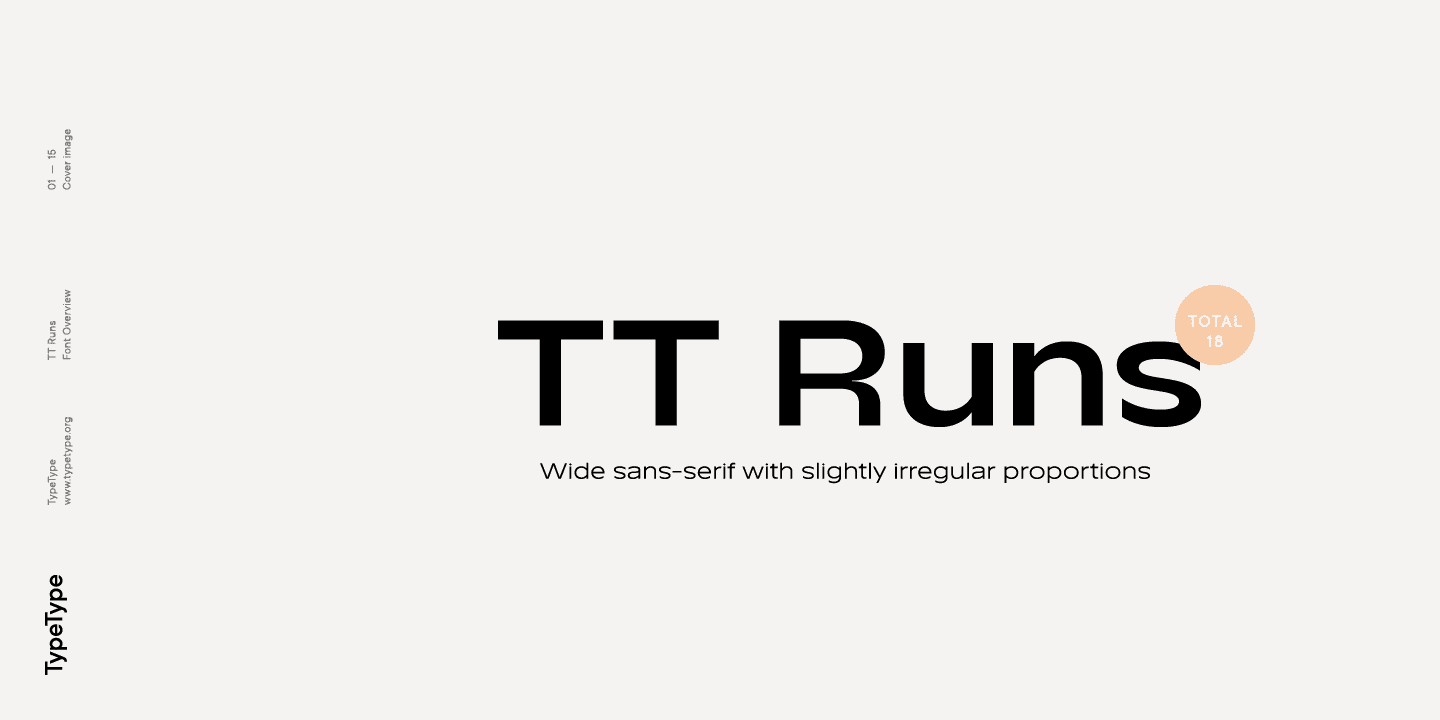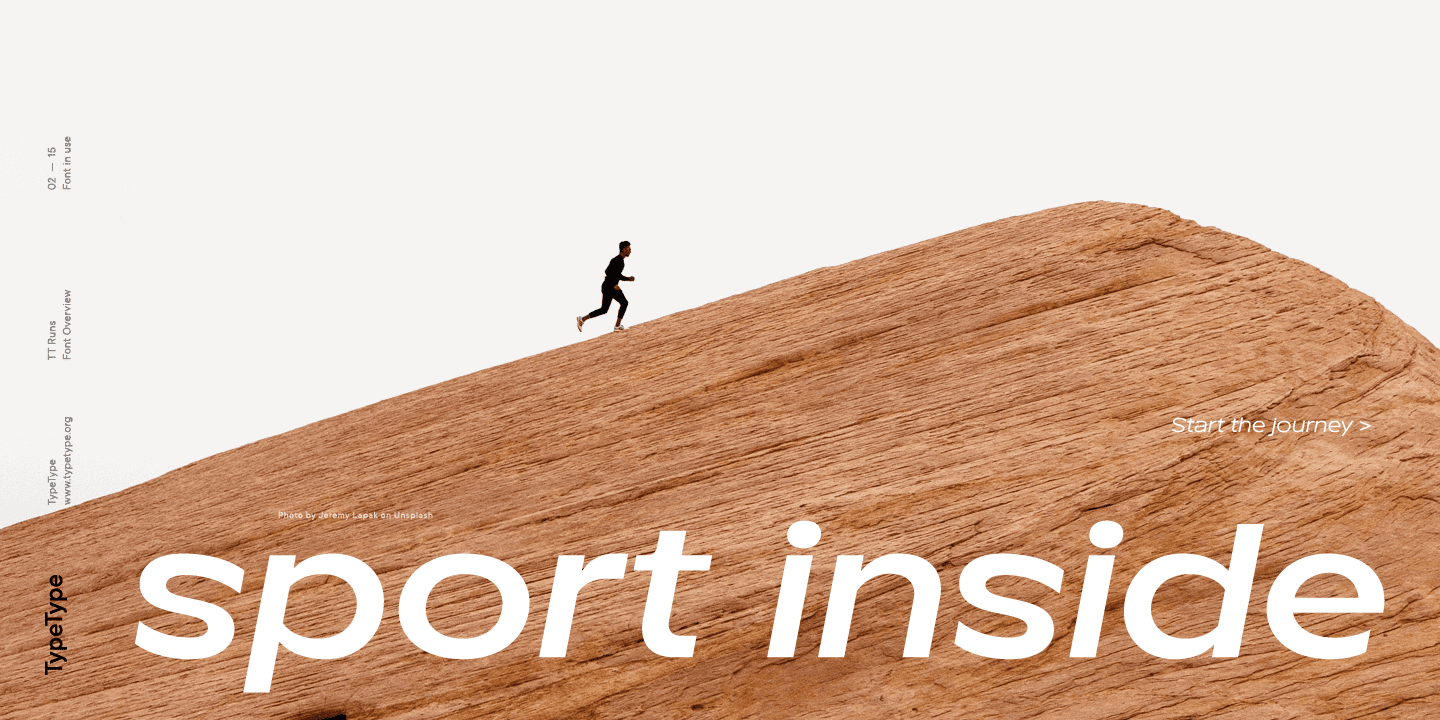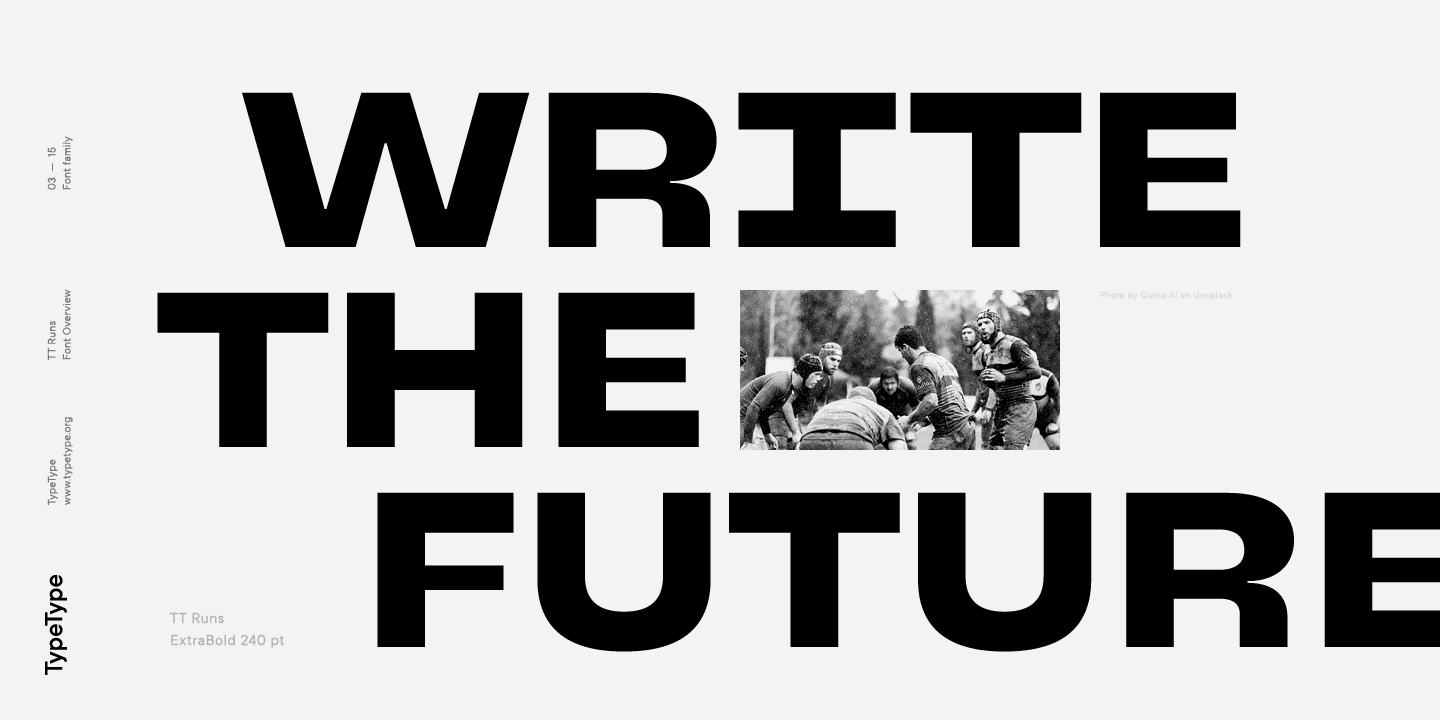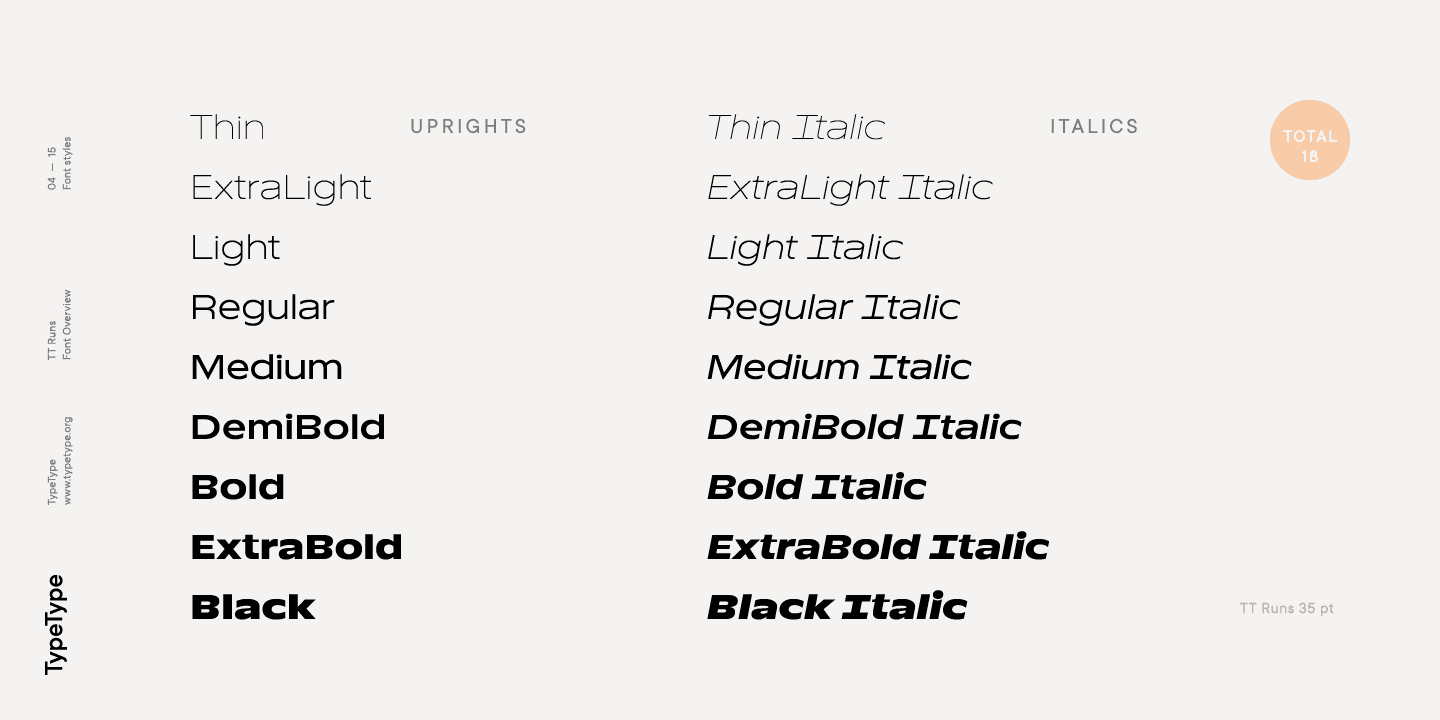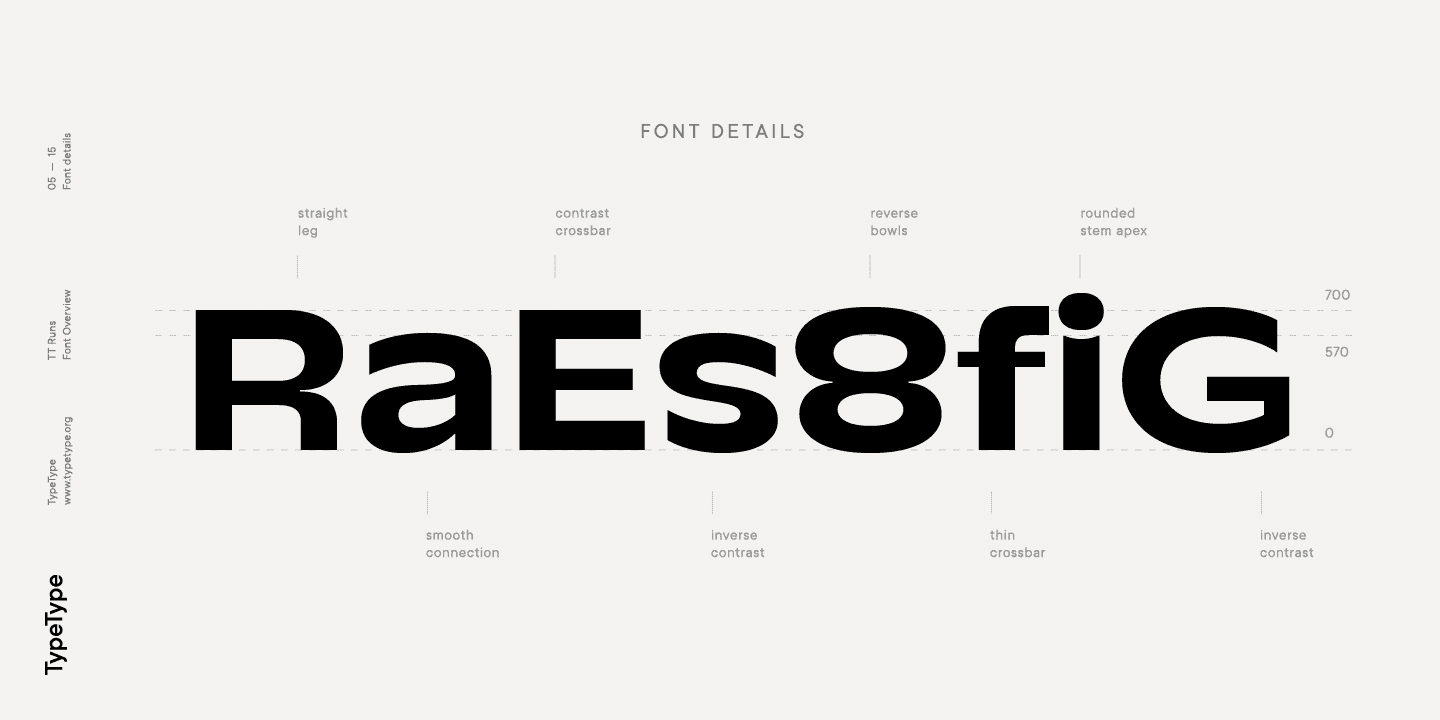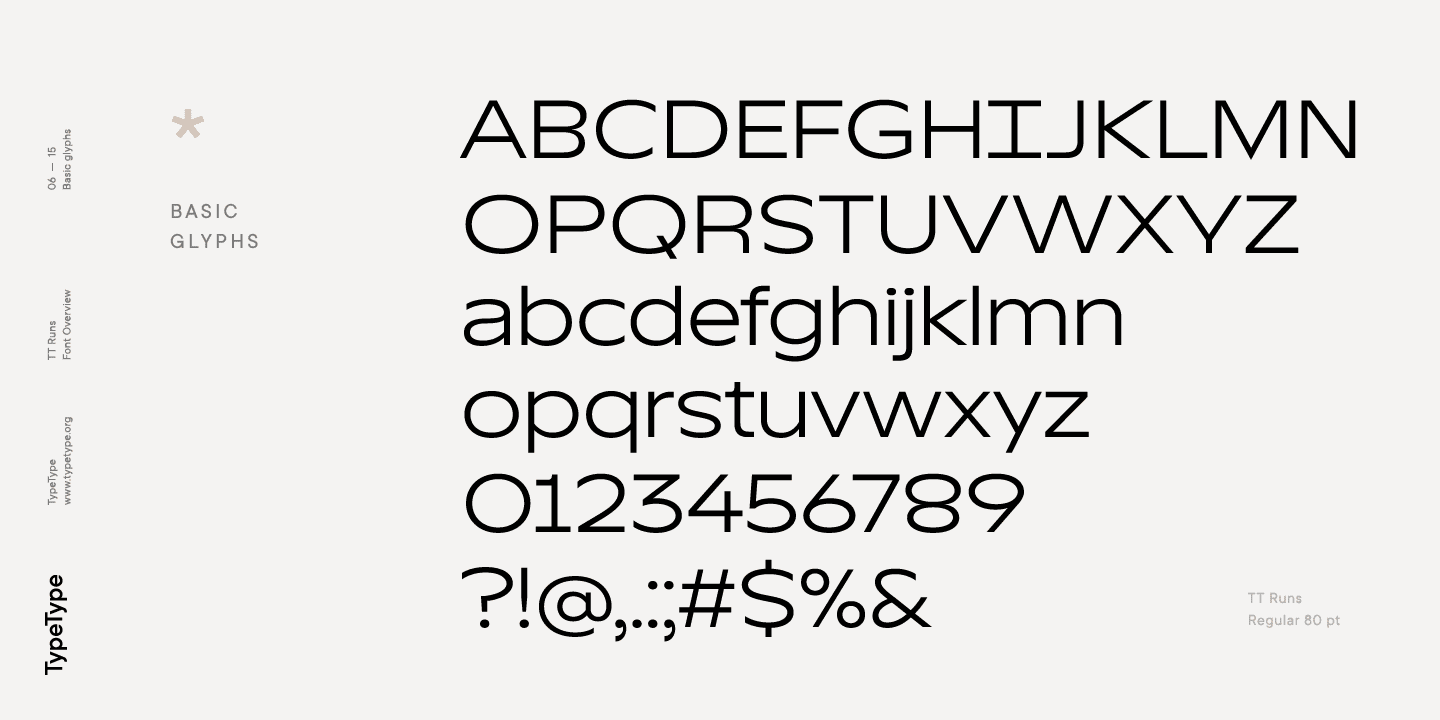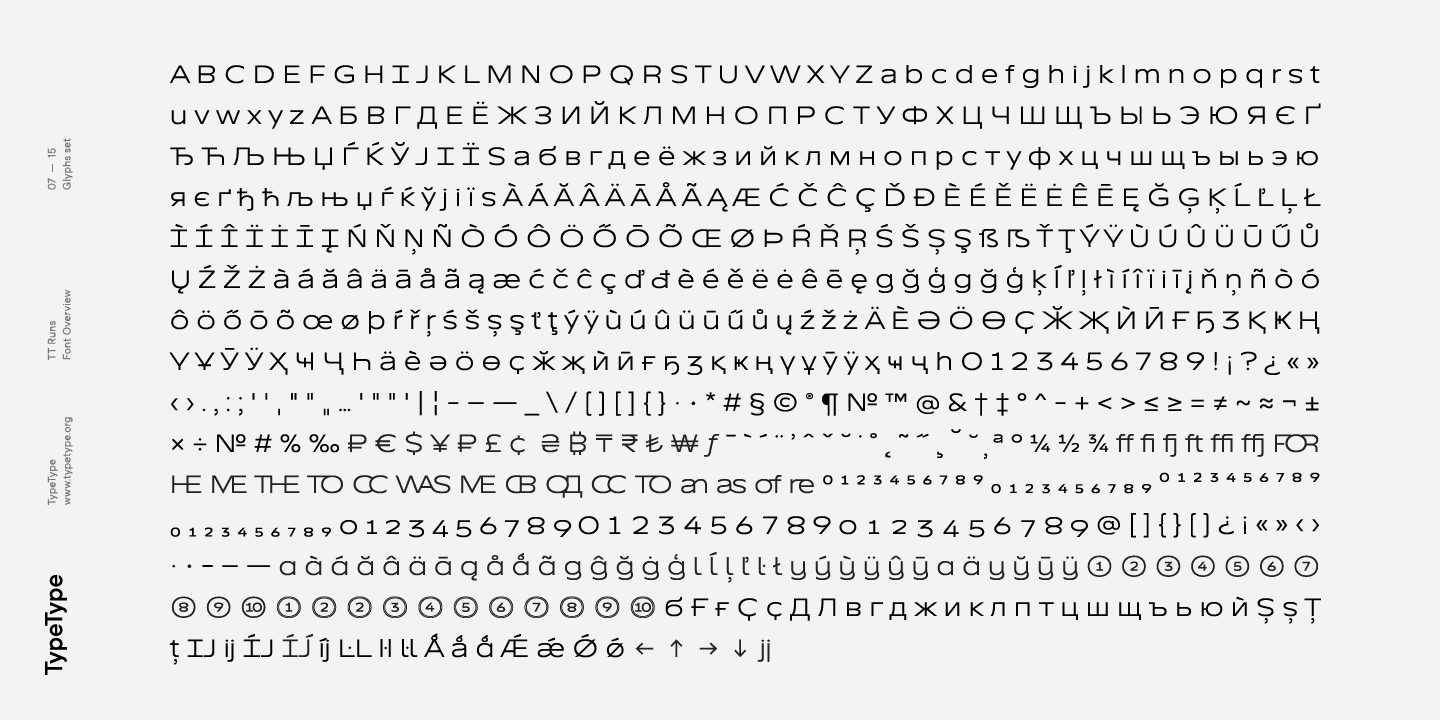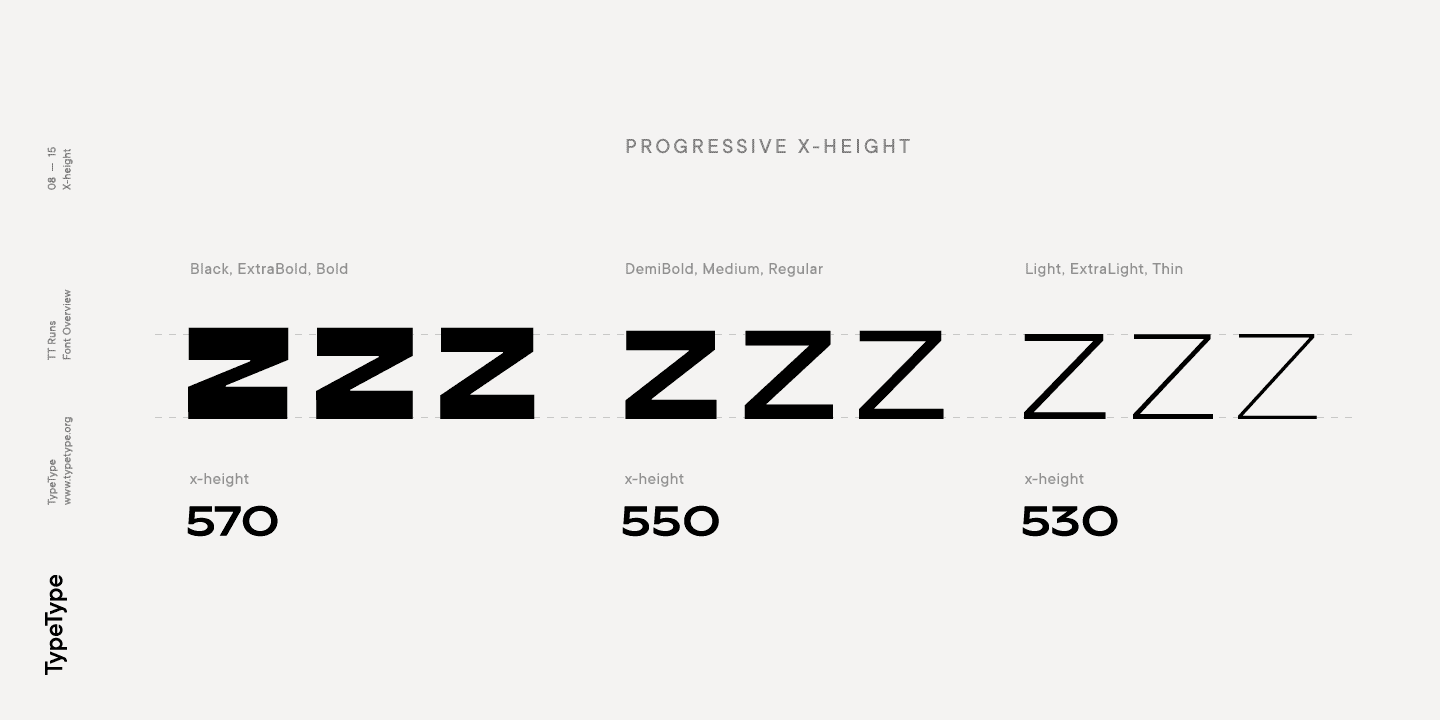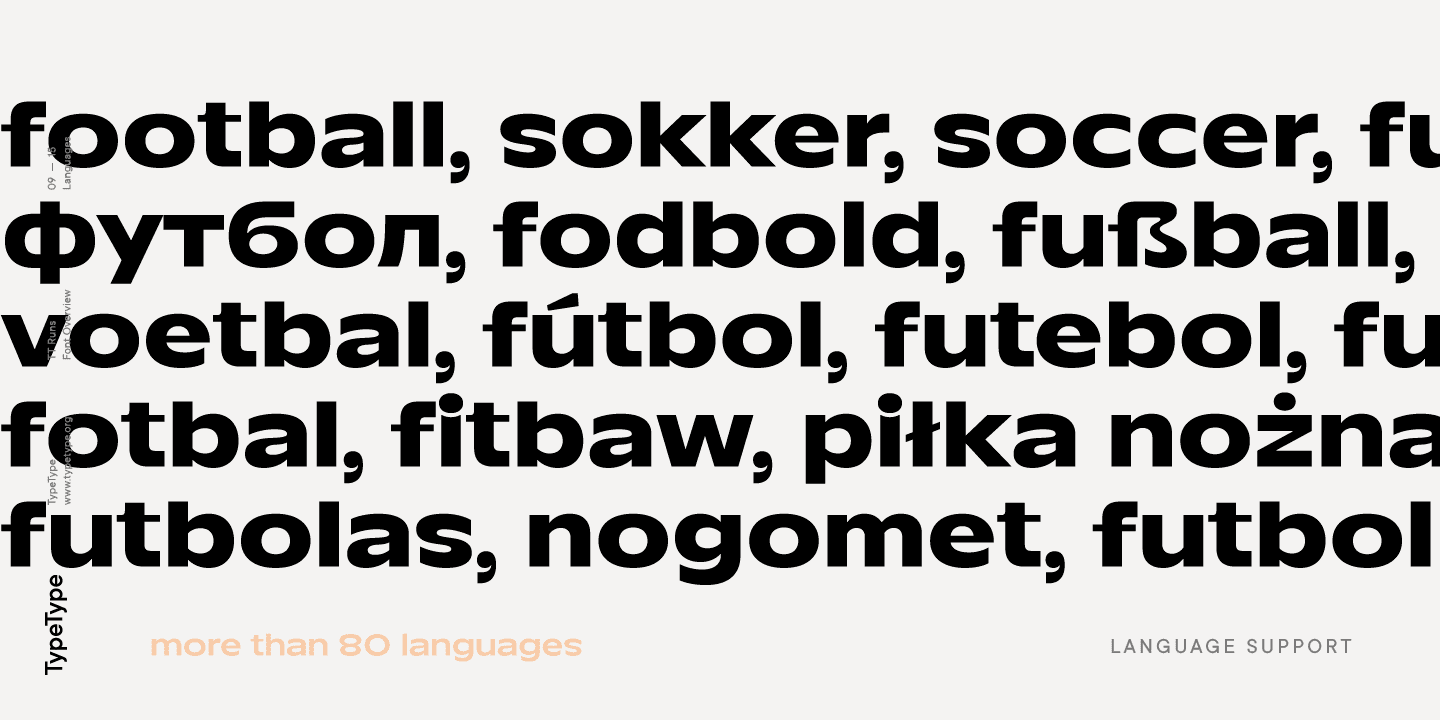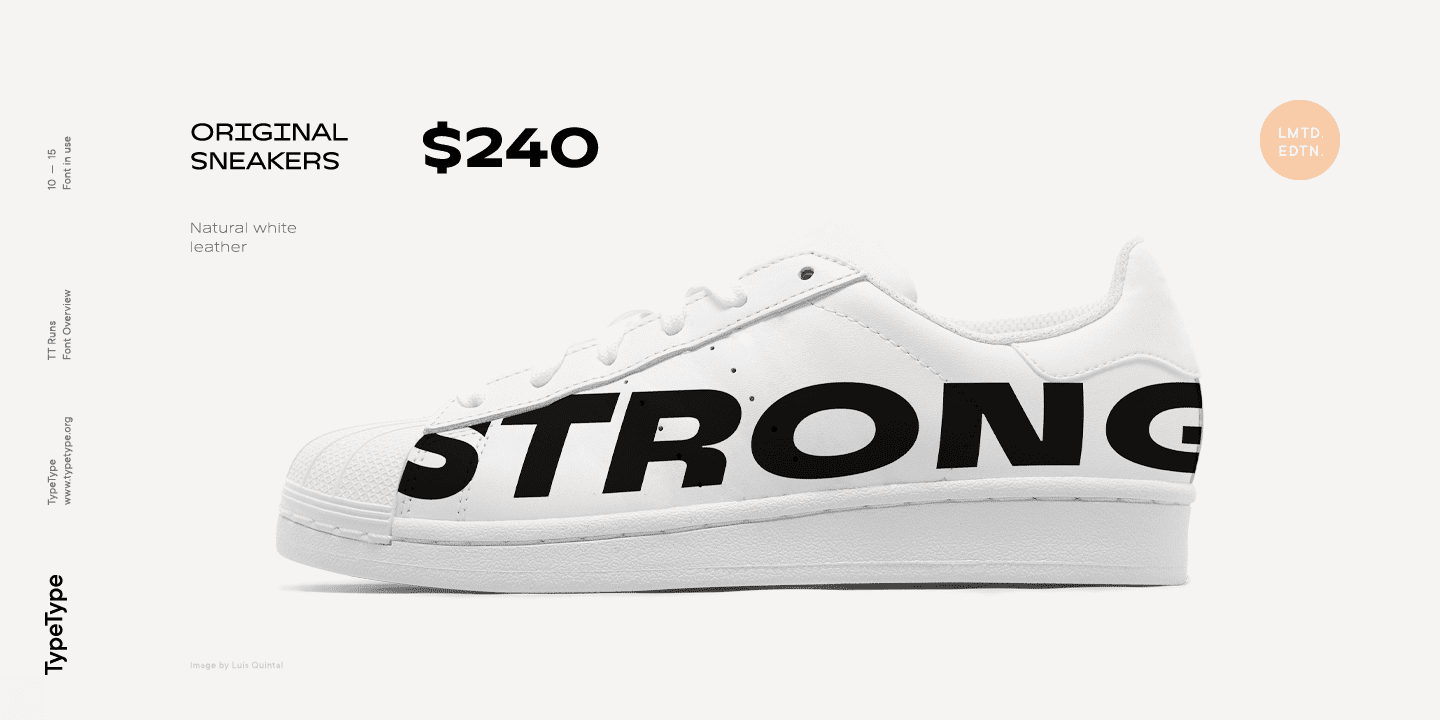
In the end, we came up with the idea of making a typeface that is targeted for application to elastic sports outfits or casual sportswear. This decision has greatly influenced the appearance of the wide and slightly stretched proportions in our typeface, the appearance of the reversed contrast of the shape of some characters relative to the vertical line and their deformation, and the overall plasticity of the letters.
TT Runs is very versatile: on the one hand it is a regular sans-serif that can be used even in a large text array, and on the other hand it is a bright display typeface with irregular proportions of characters that looks great even in large headings.
A striking feature of the typeface is the difference between the top and bottom, the so-called inverse contrast of the shape relative to the vertical line, which is especially noticeable in uppercase characters (for example, in the letters K, C, S, R). In lowercase characters, everything is calmer and more traditional, the reverse contrast of the forms relative to the vertical line is greatly softened and almost invisible.
The main visual features of the typeface also include a large vertical height of lowercase characters. Moreover, the bolder the weight of the style, the taller the height of the lowercase character becomes. In addition, when the DemiBold weight is reached, the design of some characters changes, for example, a vertical stroke in bold for characters with a dot at the top bends into an arc.
TT Runs consists of 18 styles (9 upright and 9 obliques), each of which includes 739 glyphs. In addition to the broad language coverage in the typeface, you can find a bunch of useful OpenType features. Stylistic alternates, standard and discretionary ligatures, old-style figures, numbers in circles, arrows and much more. Full OpenType list of features: ordn, case, frac, sinf, sups, numr, dnom, onum, tnum, pnum, lnum, dlig, liga, calt, locl, salt, ss01, ss02, ss03, ss04, ss05, ss06, ss07, ss08, ss09, ss10, ccmp, subs